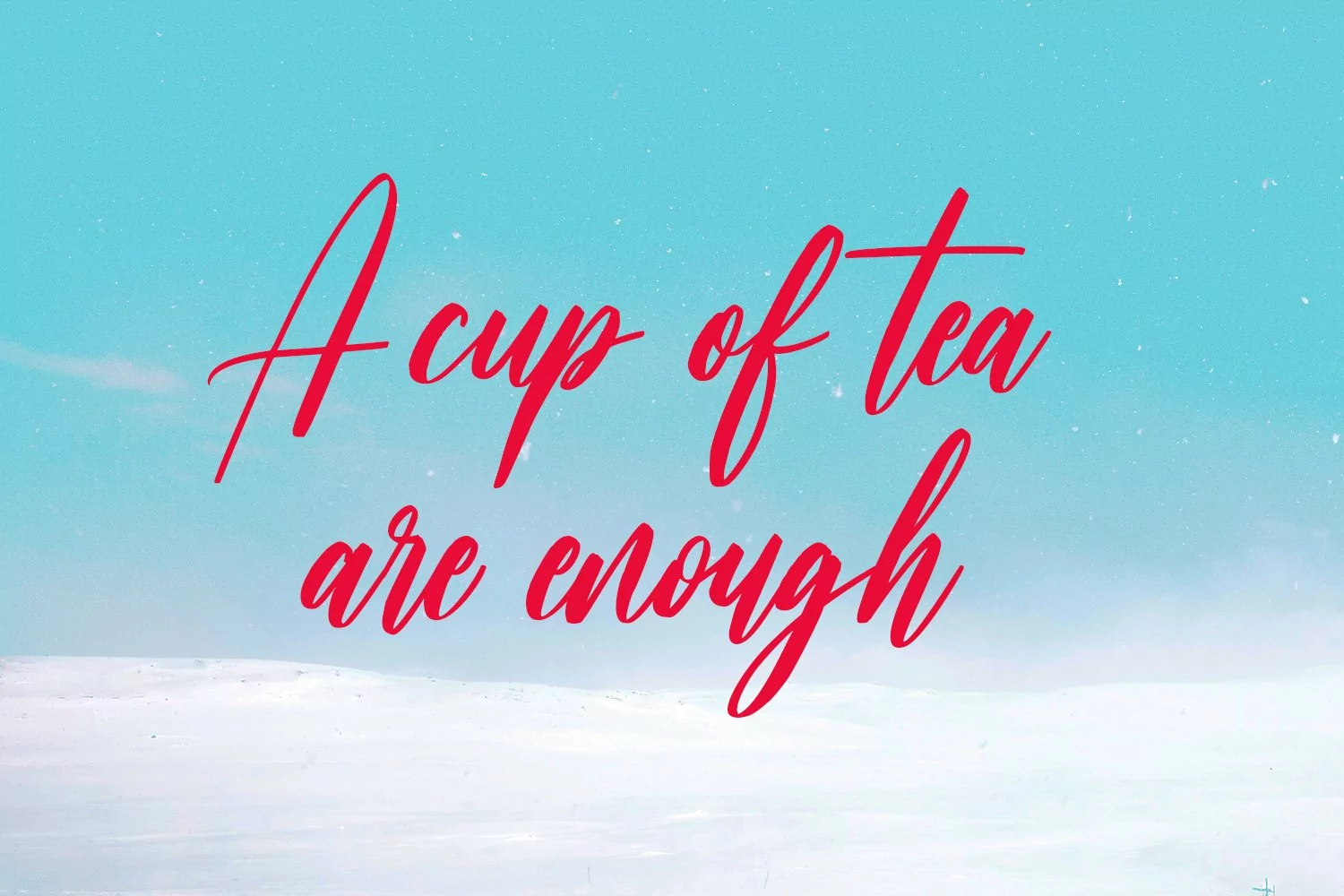
Beauty Snowy is an expressive super slanted signature script font. With high contrast stroke, condensed and fun character with a bit of ligatures. To give you an extra creative work. Beauty Snowy font support multilingual more than 100+ language. This font is good for logo design, Social media, Movie Titles, Books Titles, a short text even a long text letter and good for your secondary text font with sans or serif. Make a stunning work with Beauty Snowy font.
Beauty Snowy